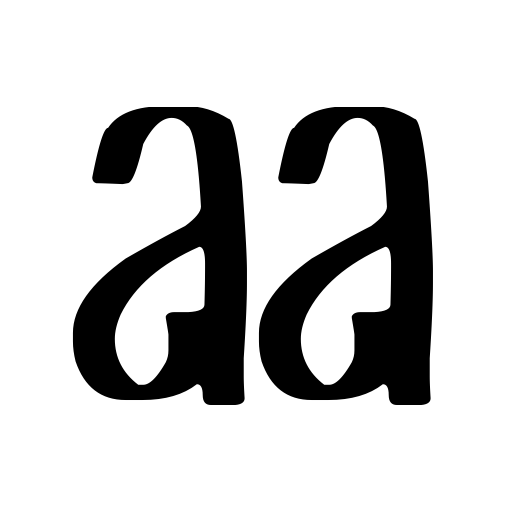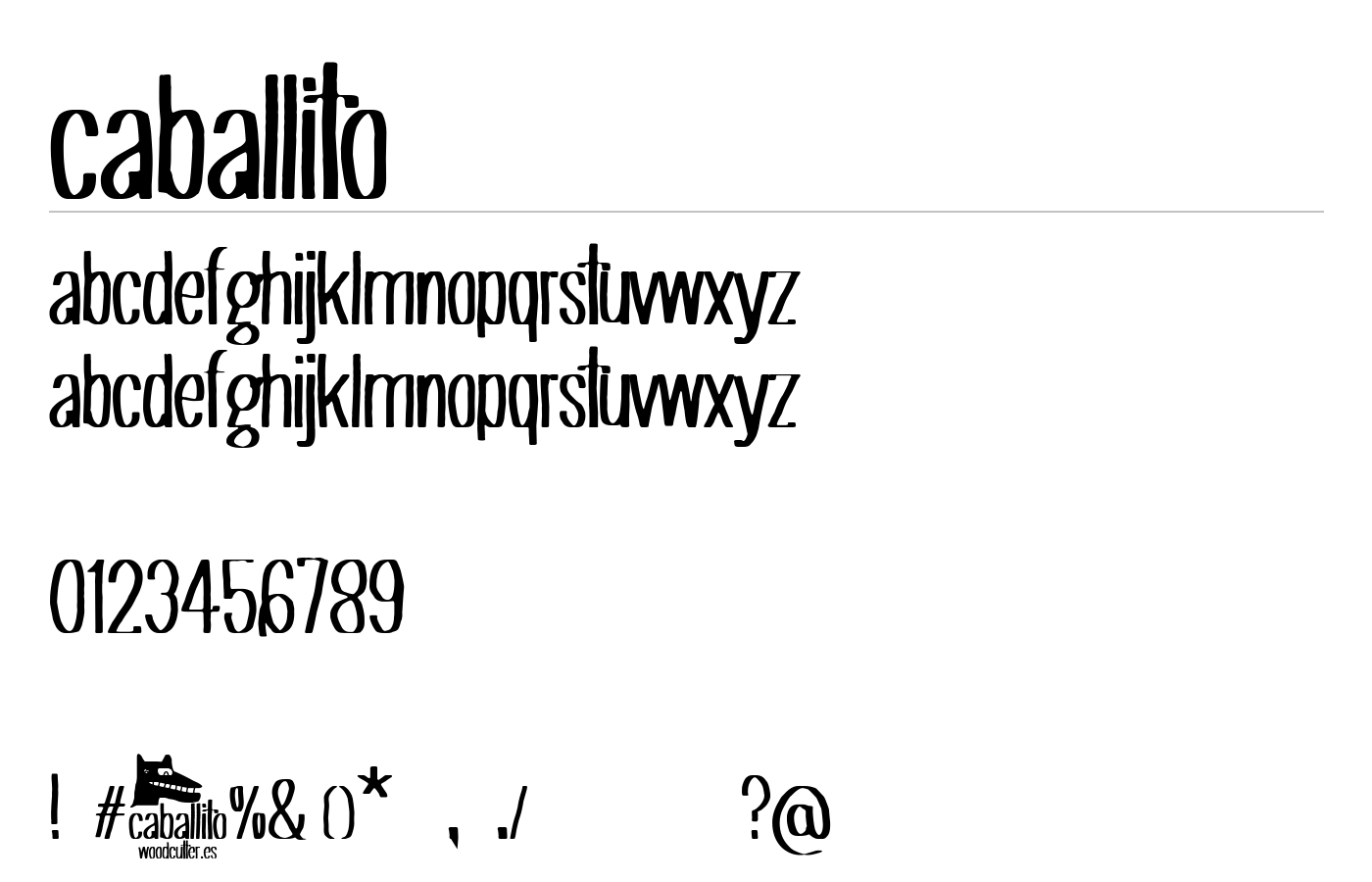
Caballito is a narrow, condensed sans serif font with an informal, hand-drawn feel that mixes playful curves with a slightly quirky, uneven stroke. Its tall, slim letterforms, including double-story “a” and “g,” combined with minimal contrast and organic shapes, give it a distinctive, artistic personality perfect for creative projects that need a touch of character and originality. This font works well in headlines, packaging, and branding where a casual, unique vibe is desired without sacrificing readability.
Caballito Font
| Font family | Caballito Font |
| Designer | Jordi Manero Pascual |